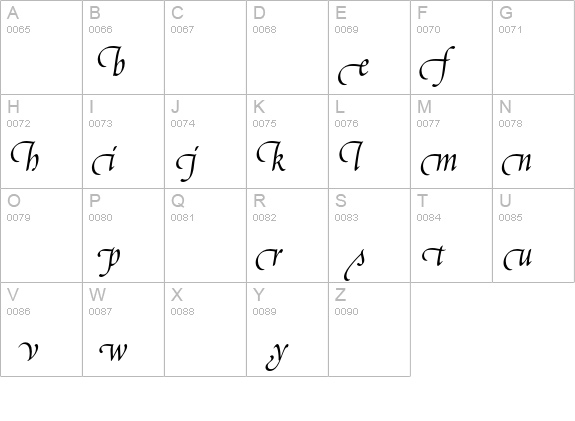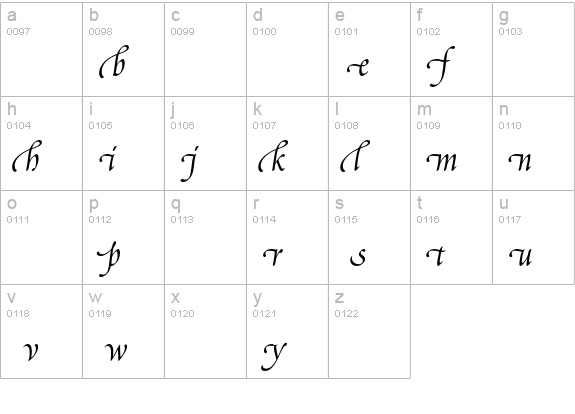
Poetica Supp Lowercase Beginnings I Font Details
Introducing Poetica Supp Lowercase Beginnings I font, a beautifully crafted typeface that exudes elegance and sophistication. With its delicate curves and graceful strokes, this font is perfect for adding a touch of poetry to your designs. Whether you are creating invitations, greeting cards, or branding materials, Poetica Supp Lowercase Beginnings I font will elevate your projects to new heights. This exquisite font is ideal for conveying a sense of refinement and artistry. Its lowercase beginnings exude a sense of humility and simplicity, while still retaining a sense of grace and beauty. The flowing lines of the letters create a harmonious and balanced look that is sure to captivate your audience. What's more, Poetica Supp Lowercase Beginnings I font is completely free to download at FontsMarket.com. Take advantage of this opportunity to enhance your design projects with this stunning typeface. Let Poetica Supp Lowercase Beginnings I font inspire your creativity and bring a touch of elegance to your work. Download it today and start creating beautiful designs that will leave a lasting impression.